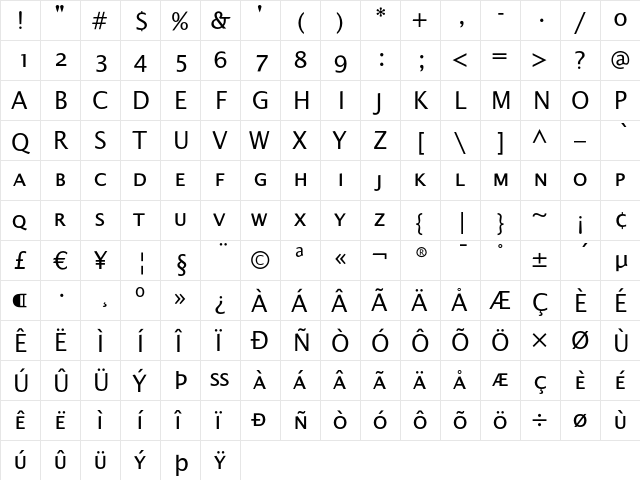
Alphabet4 SmallCaps
Design Context for Alphabet4 Typeface
Alphabet4 takes a measured approach to typography — its balanced proportions and neutral character make it a reliable workhorse for both digital and print work.